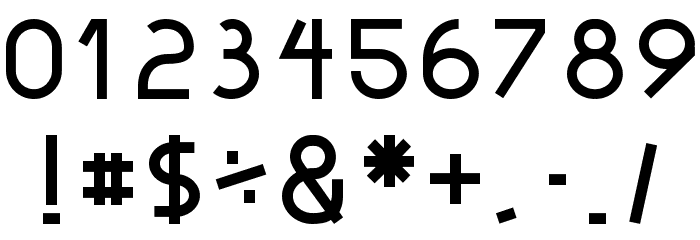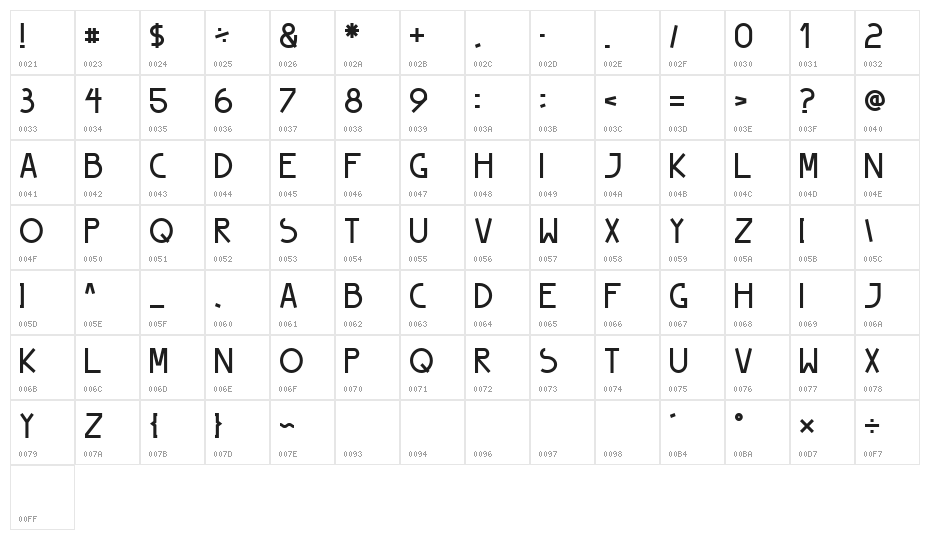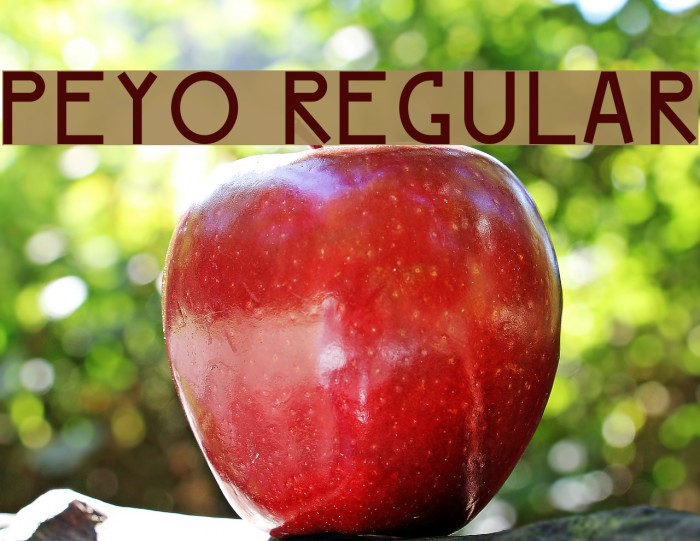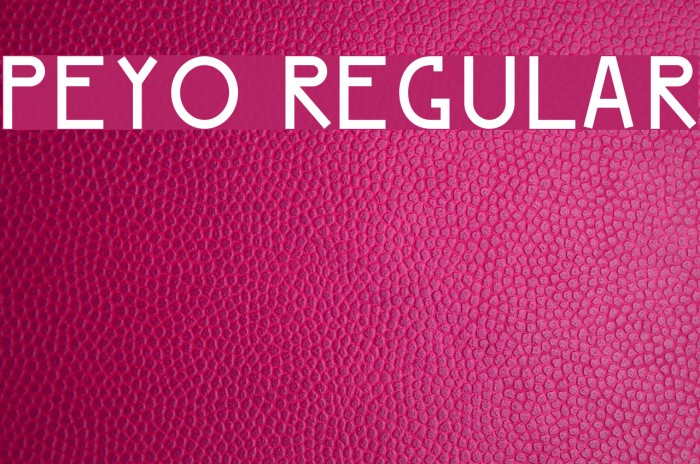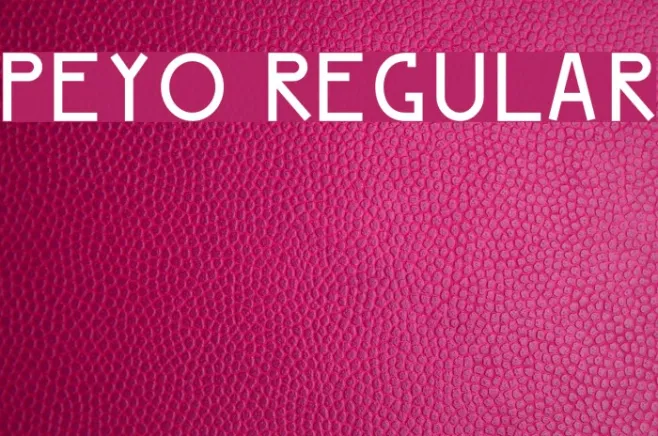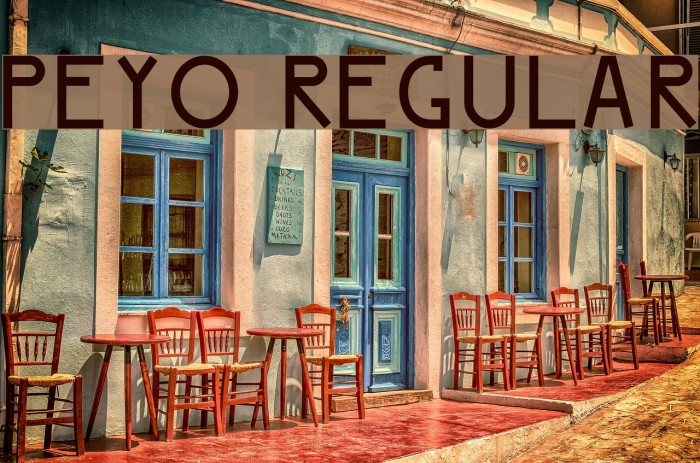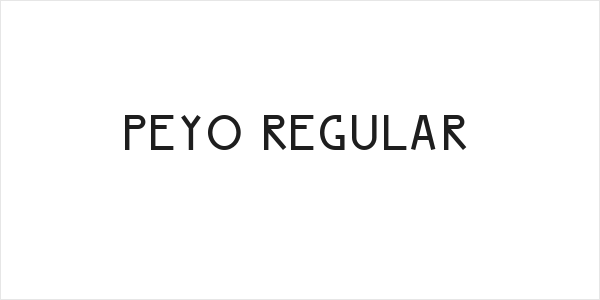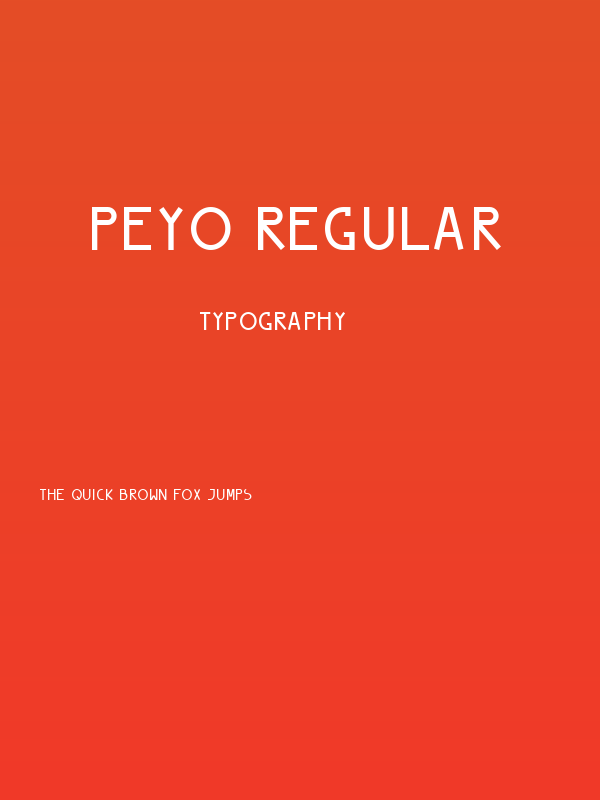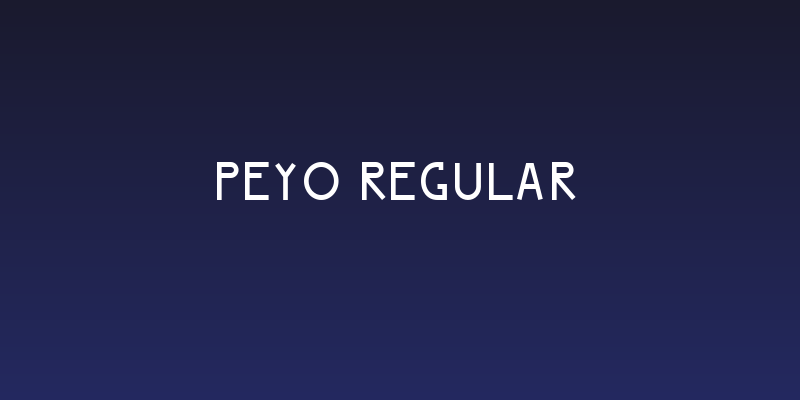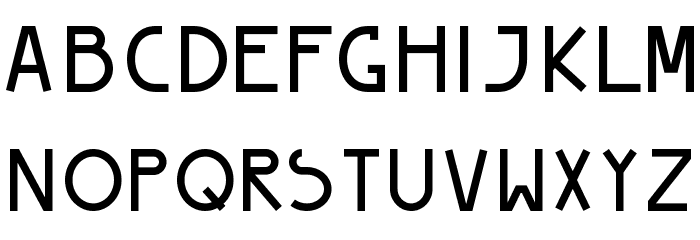
Peyo Regular Font
Peyo Regular Description
This font features a geometric and modern design with clean, straight lines and sharp angles. The uppercase letters are uniform in height, creating a cohesive and structured appearance. The lowercase letters maintain a similar geometric style, with some characters like 'a' and 'g' having a unique, contemporary twist. The numerals are bold and easily readable, complementing the overall style. Special characters are designed with the same attention to detail, ensuring consistency across all glyphs. The font's simplicity and clarity make it versatile for various design applications.
| Use Case | Headlines, Logos, Digital media |
| Proposed Projects | Ideal for branding, advertising, and digital media projects that require a modern and clean aesthetic. |